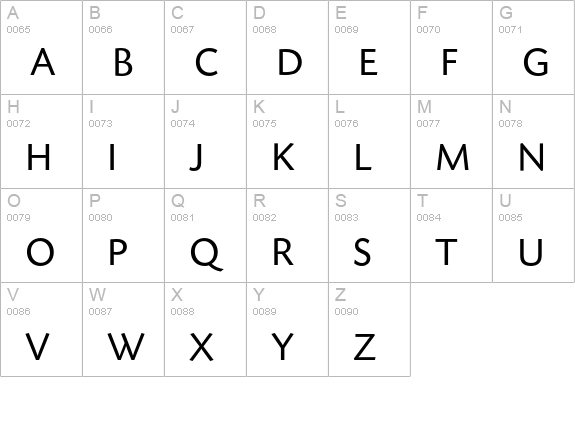
Today Sans Serif Regular is the standard, neutral variant in the Today typeface family \xE2\x80\x94 well suited to general body text, paragraphs, and standard typographic work.
Today Sans Serif Regular is a versatile and modern font that effortlessly blends simplicity with sophistication. It exudes an air of confidence and professionalism, making it the perfect choice for a wide range of design projects. With its clean and minimalist aesthetic, Today Sans Serif Regular is sure to make a lasting impression. Its balanced letterforms and even spacing create a harmonious and legible typeface that is easy on the eyes. Whether used for headlines, body text, or branding materials, this font is guaranteed to enhance any design. What sets Today Sans Serif Regular apart is its ability to adapt to various design styles and purposes. It is equally well-suited for both digital and print applications, making it a versatile choice for websites, advertisements, posters, logos, and more. Its timeless appeal ensures that it will remain relevant and stylish for years to come. And the best part? Today Sans Serif Regular is available for free download at FontsMarket.com. That's right, you can enjoy the elegance and functionality of this font without spending a dime. Simply head over to FontsMarket.com, and with just a few clicks, you can add this exceptional typeface to your collection. Don't miss out on the opportunity to enhance your designs with Today Sans Serif Regular. Download it for free at FontsMarket.com and experience the seamless blend of sophistication and simplicity that this font offers.